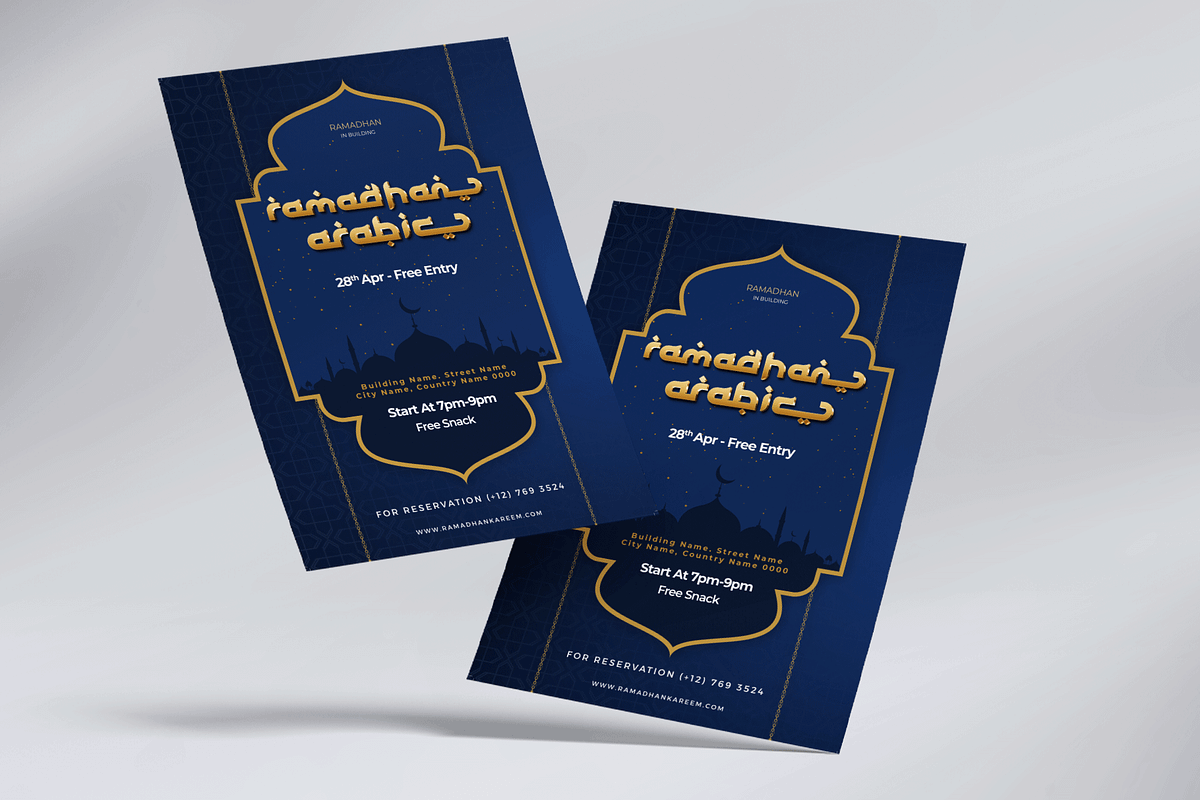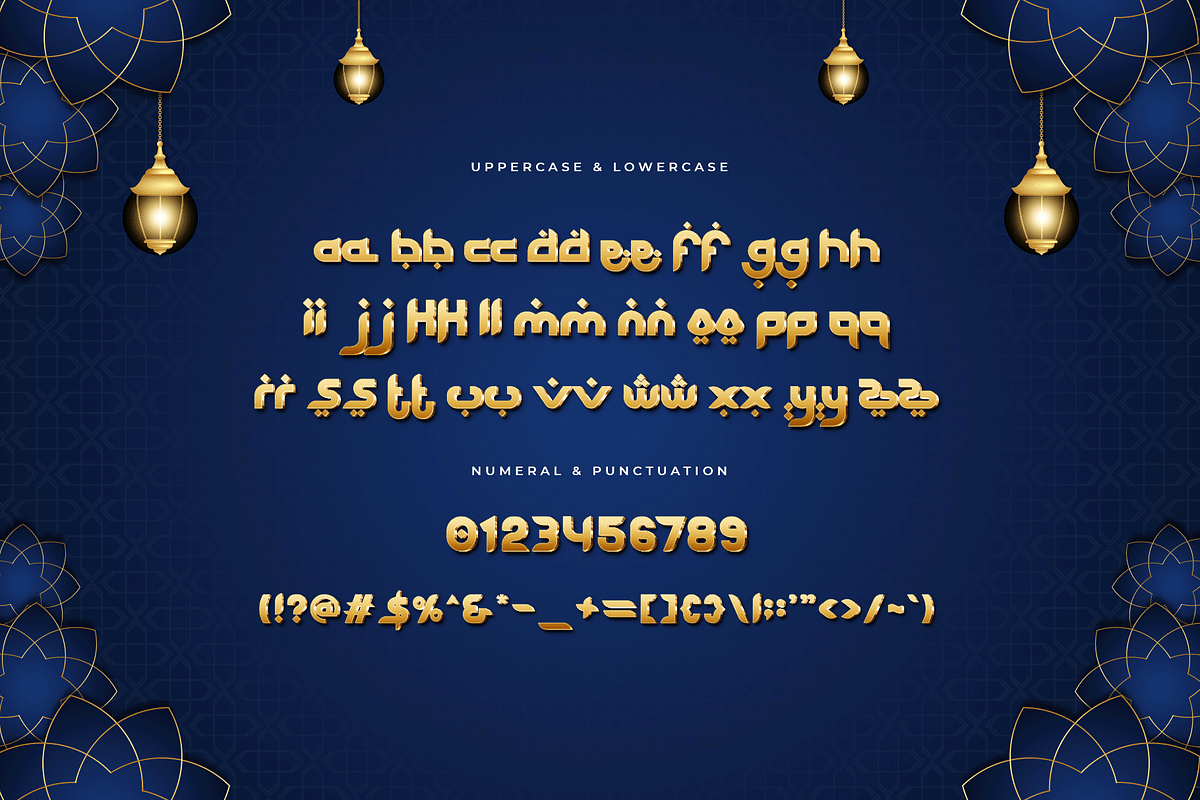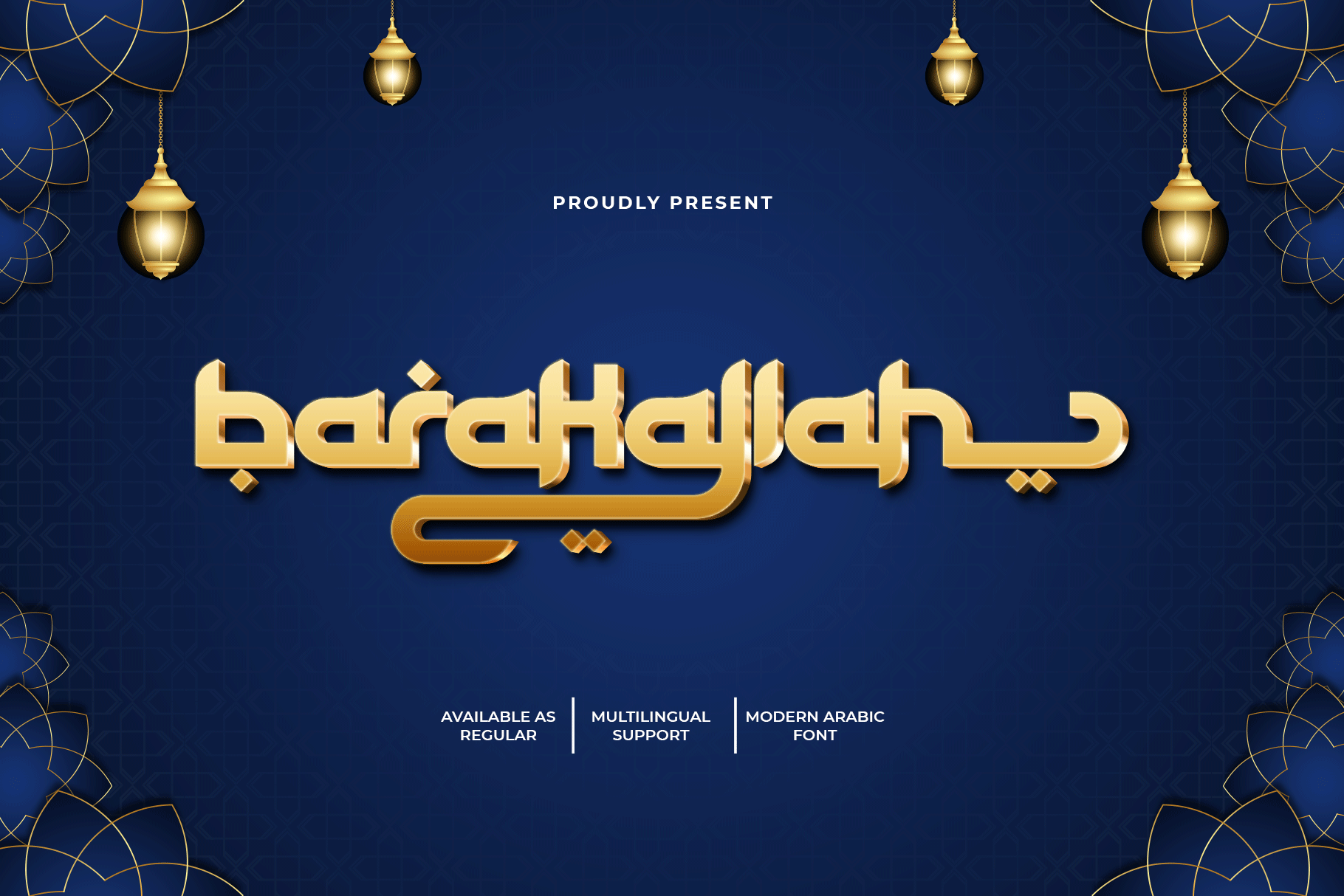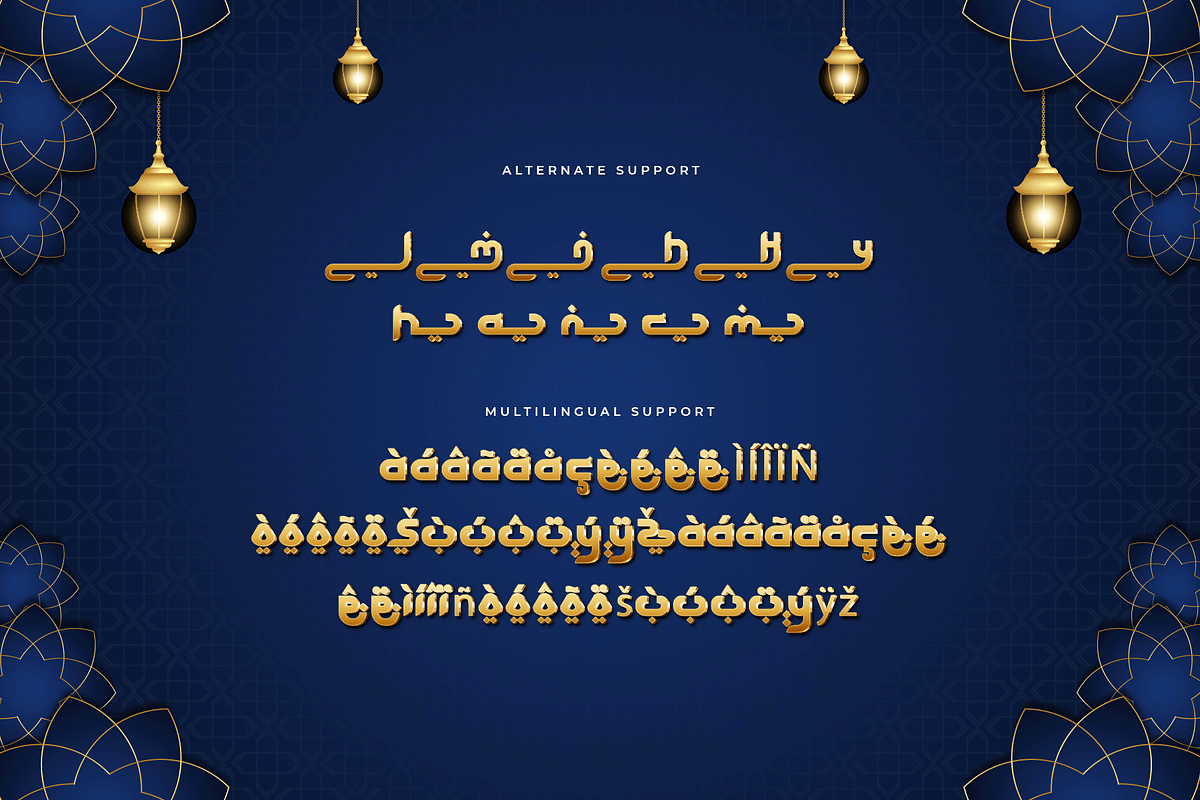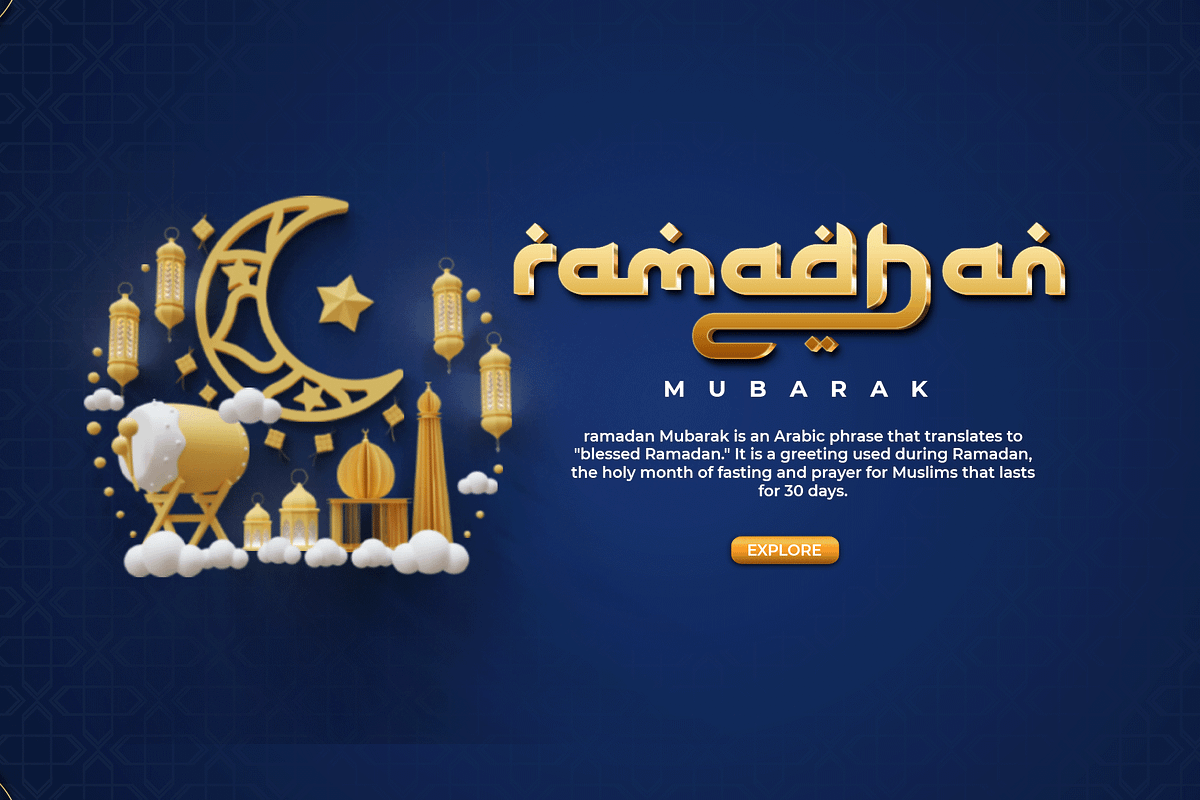
Barakallah - A Modern Arabic Font
Barakallah is a sleek and contemporary Arabic font designed to bring a touch of modern elegance to your design projects. With its smooth curves and refined letterforms, Barakallah is perfect for branding, formal invitations, editorial layouts, and digital interfaces. This font combines traditional Arabic script with a modern aesthetic, ensuring your work stands out with sophistication and style.
Crafted with meticulous attention to detail, Barakallah offers excellent readability and visual harmony. Its elegant and versatile design makes it suitable for both headlines and body text, providing consistency and beauty across all your visual communications. The font’s extensive character set supports multiple languages, making it an ideal choice for global branding and multicultural projects.
Elevate your designs with Barakallah, a font that embodies the fusion of tradition and modernity. Its unique style and adaptability make it an essential addition to any designer's toolkit. Make a lasting impression with Barakallah and experience the beauty of modern Arabic typography.